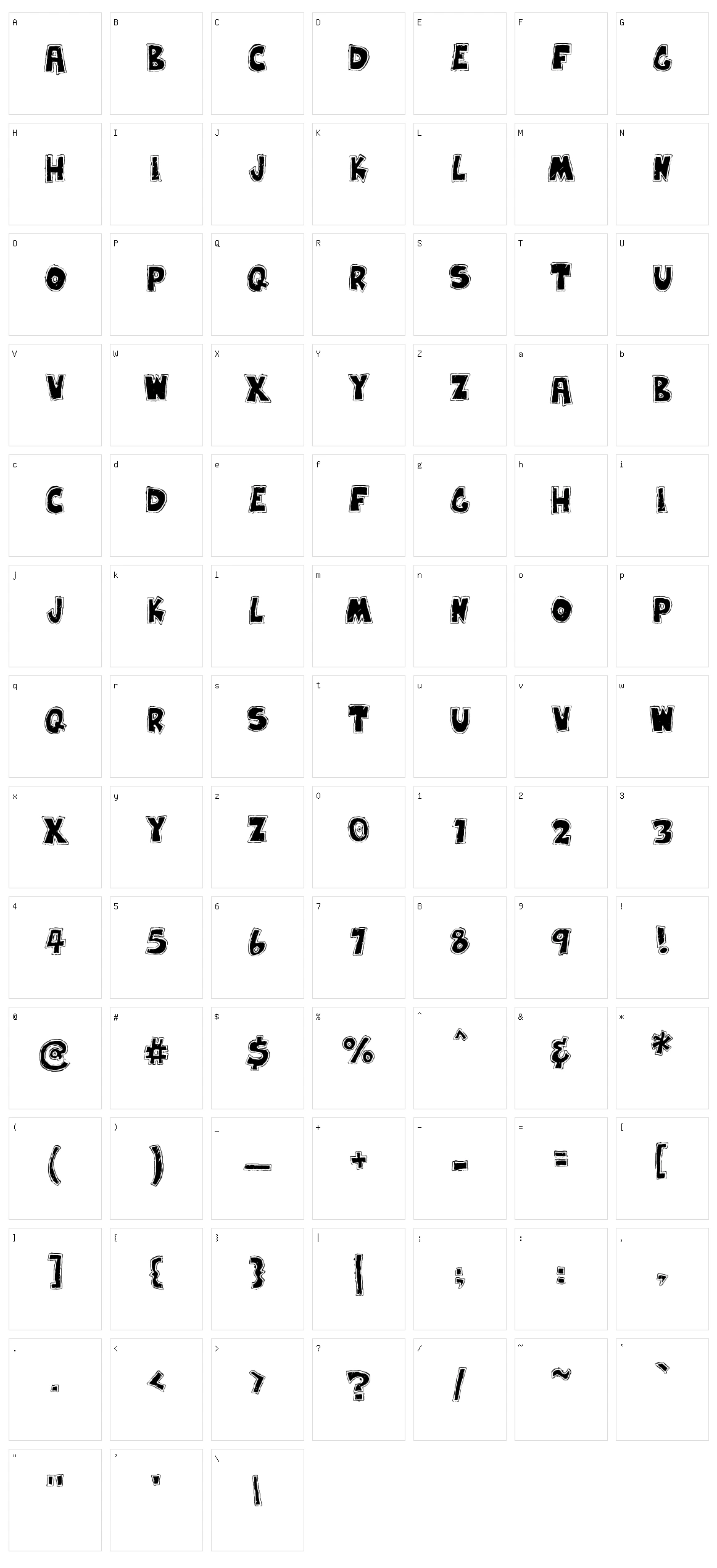
EARWAX WIT
A TrueType Font by S. John Ross
Cumberland Games & Diversions
Heres another friendly-and-junky doodle font, somewhere around the same level of sophistication as Thunder Thighs, but with more rough texturing and a border going on. It may not inspire many deep sighs, but its fallout from a complex experiment involving multi-color scan masters An experiment that Ill be returning to in other ways in future font projects. In the meantime, enjoy it for what it is: a slovenly, full-keyboard all-caps font with a few extras thrown in.